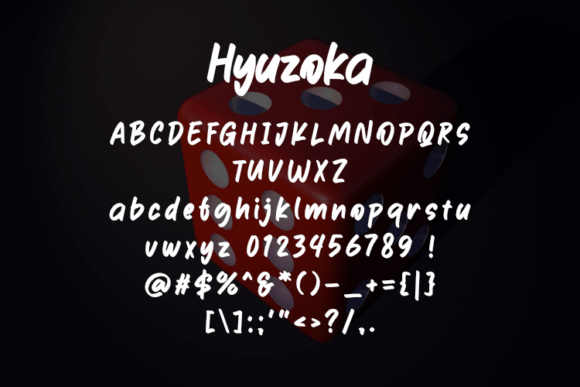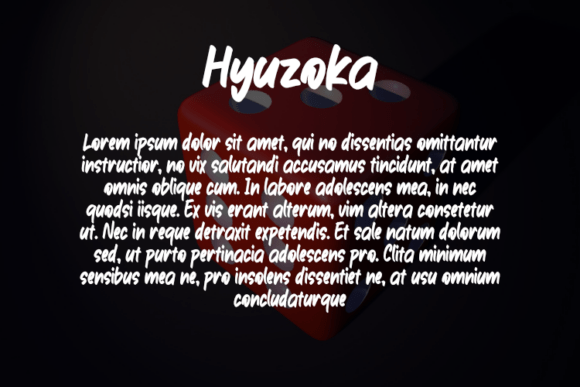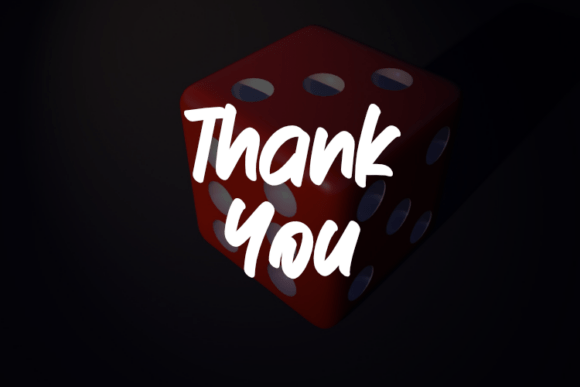
Introduction to Hyuzoka Font
Have you ever stared at a blank design canvas, feeling the pressure to create something truly unique and captivating? That’s exactly where the magic of typography comes in – and the Hyuzoka Font is here to revolutionize your creative process. With its sleek, modern design, this versatile font is specifically tailored to meet the demands of the fashion industry, where every detail matters.
As a designer, you know how crucial it is to have the right tools at your disposal to bring your creative project to life. The Hyuzoka Font is an invaluable resource that offers high-quality typography, seamless compatibility with all software, and an effortless blend of style and functionality. Whether you’re working on a clothing line, a T-shirt design, or a range of unique products, this font ensures optimal readability and stylish flair across all design platforms.
Key Features of Hyuzoka Font
- High-quality design resource for creative projects, offering a unique and stylish aesthetic.
- Features a clean and modern design, making it perfect for use in logos, typography, and other graphic design projects.
Honest Review: Hyuzoka Font
I recently stumbled upon the Hyuzoka Font while searching for a design resource to use for a creative project. I was impressed with its unique and modern style, which made it perfect for a design project that required a touch of elegance.
One of the things that works well with this font is its versatility. It can be used for both headings and body text, making it a great choice for designers who want a consistent look throughout their project. The font also has a transparent background, which allows for easy overlaying and composition.
Here are some of the features that I liked about the Hyuzoka Font:
- High quality design that looks great on both digital and print materials
- Available in various weights and styles, giving designers plenty of options
- Some users may find the font to be a bit too modern or trendy
- The font may not be suitable for projects that require a more classic or traditional look
Overall, I was impressed with the Hyuzoka Font and would definitely recommend it to designers who are looking for a high-quality design resource. With its unique style and versatility, it’s a great choice for any creative project. ⭐️⭐️⭐️⭐️ (4/5 stars)
The Hyuzoka Font is a high-quality design resource that can be used for a variety of creative projects, such as logos, graphics, and typography. Its transparent background makes it easy to use in different design scenarios. It’s also free to download, making it an excellent choice for designers on a budget.